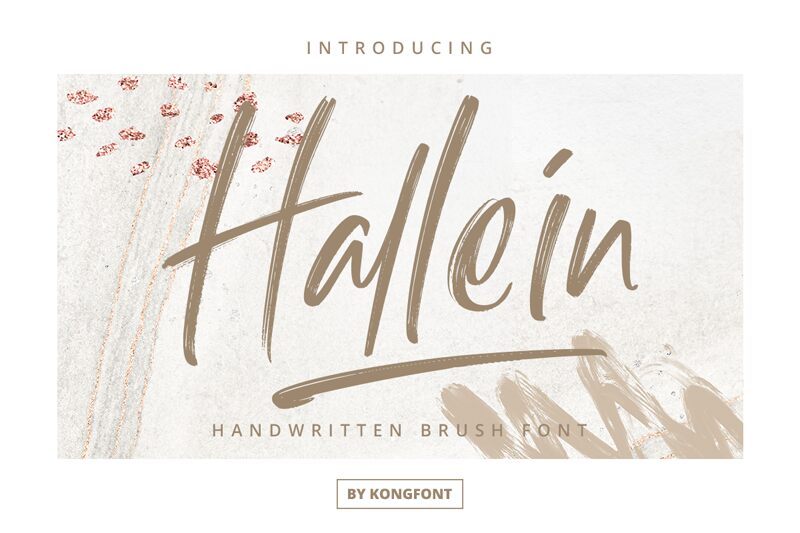
Hallein font is a stimulating brush style font by Kong Font inspired by one of the most interesting Austrian cities, Hallein. The old town is known for its historic significance and rich architecture and this resource tries to reflect some of that splendor through the design. Expressive with artistic flair, Hallein employs a modern brush script within its character set while still managing to maintain casual elegance.
Contemporary applications in branding and advertising will benefit by integrating this free font into their designs since it is highly professional. Headings, logotypes, magazine covers, food menus, book covers are but some suggestions on how you can use this resource. Each letter in itself possesses visual appeal which combined together can totally change the fate of your project for good!